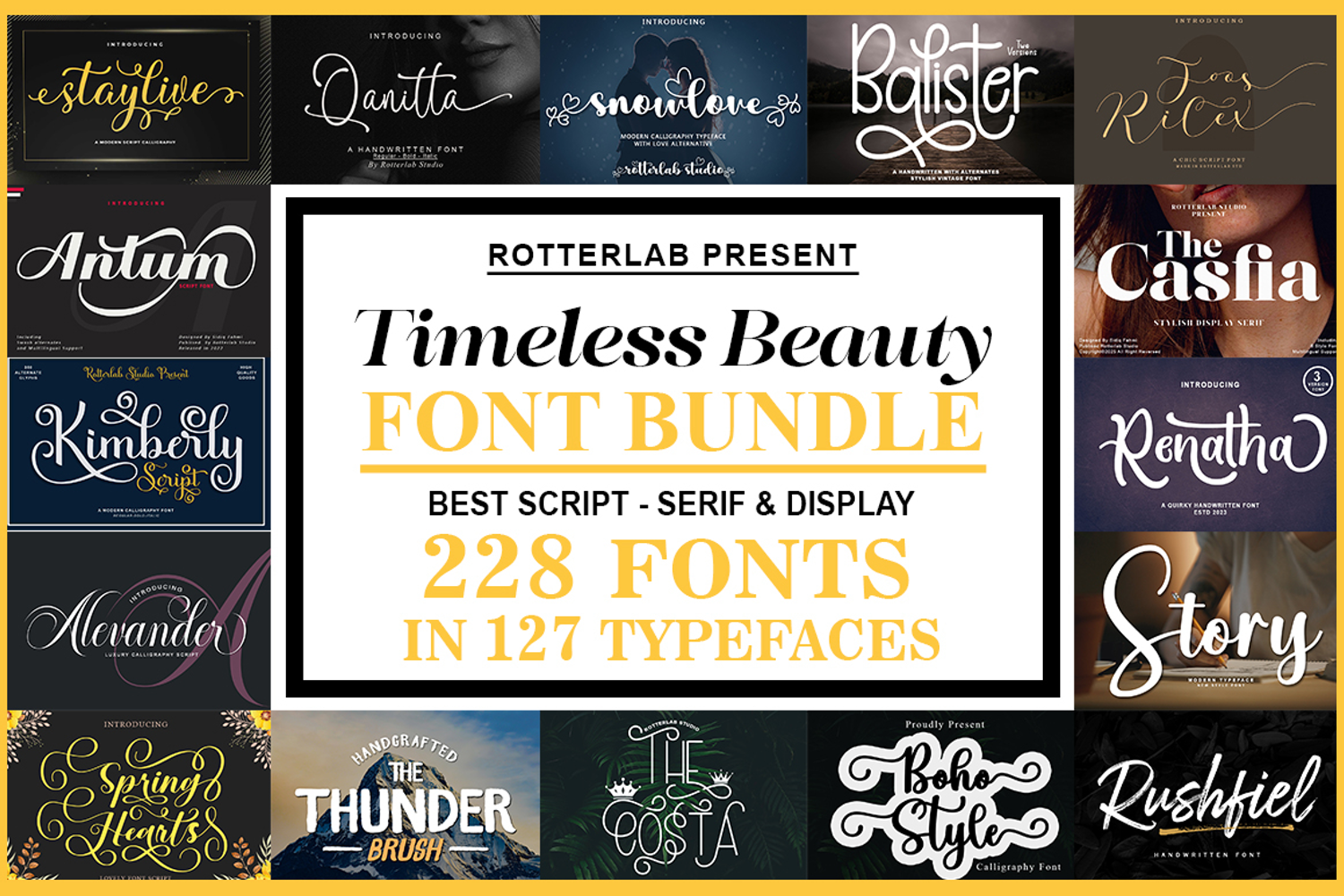
Timeless Beauty Font Bundle
The Timeless Beauty Font Bundle is a magnificent collection of 228 fonts in 127 carefully selected typefaces, created to bring beauty, action, and whimsy to every design. This bundle covers popular categories like Script, Serif, and Display, providing a diverse range of typographic characters that can be used for a variety of creative projects—from branding and logos to wedding invitations and packaging design to social media.
Each font in this bundle is crafted with meticulous attention to detail, featuring styles ranging from elegant calligraphy and modern handwriting to sophisticated serifs and bold displays. With its combination of aesthetics and functionality, this bundle is an ideal solution for both professional and novice designers looking to expand their collection of high-quality fonts.
This bundle truly lives up to its name—“Timeless Beauty,” a blend of classic beauty and modern touches that will make any design look more captivating and timeless.
Timeless Beauty Font Bundle